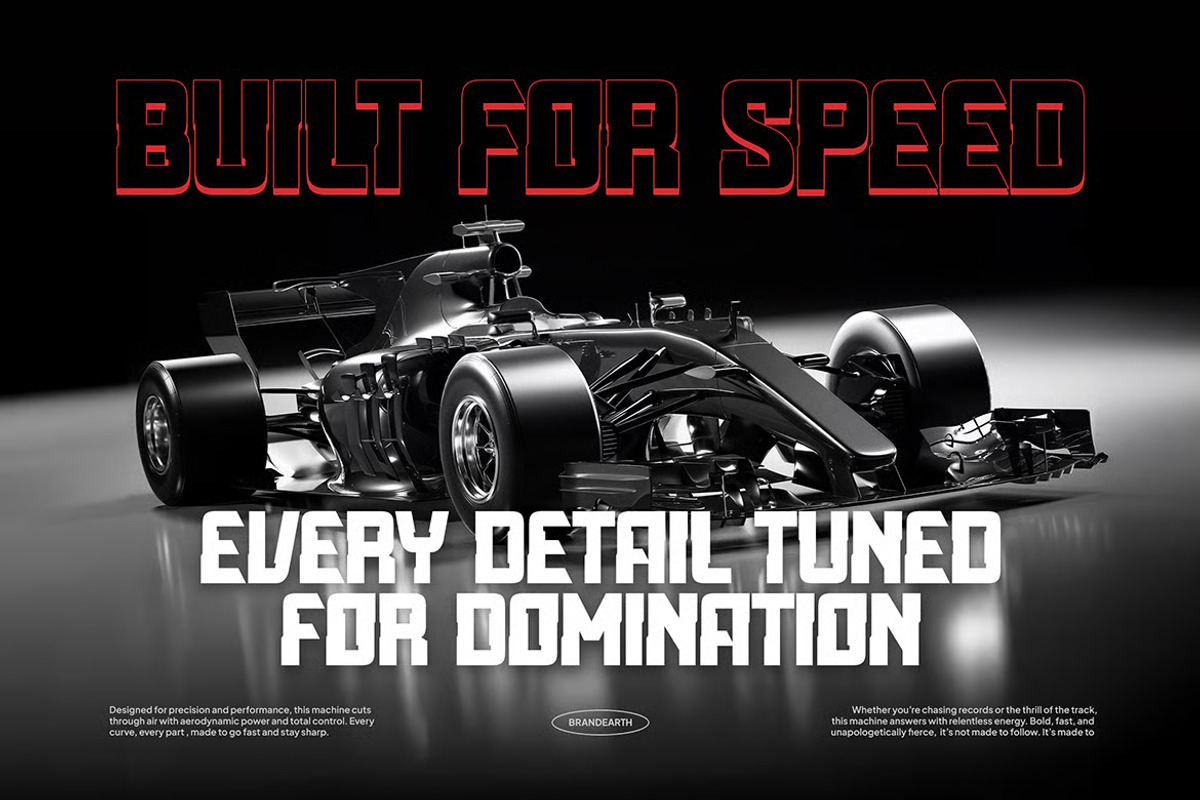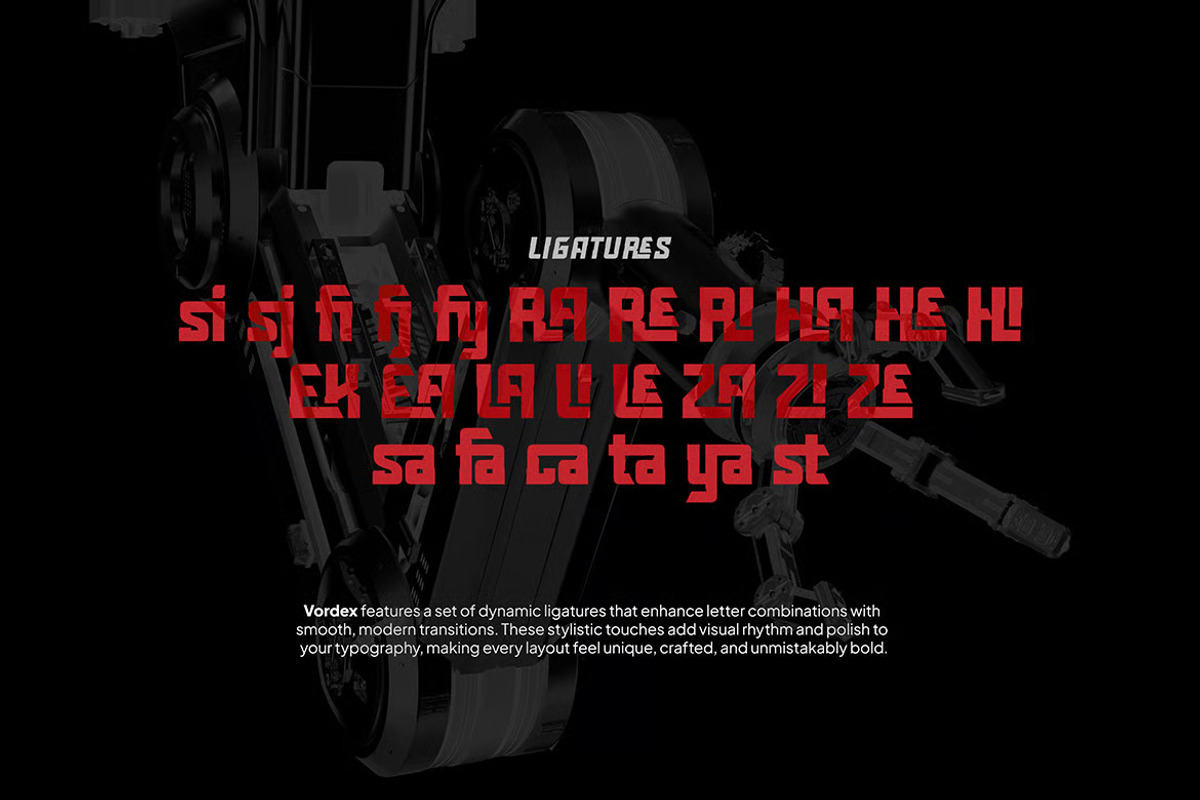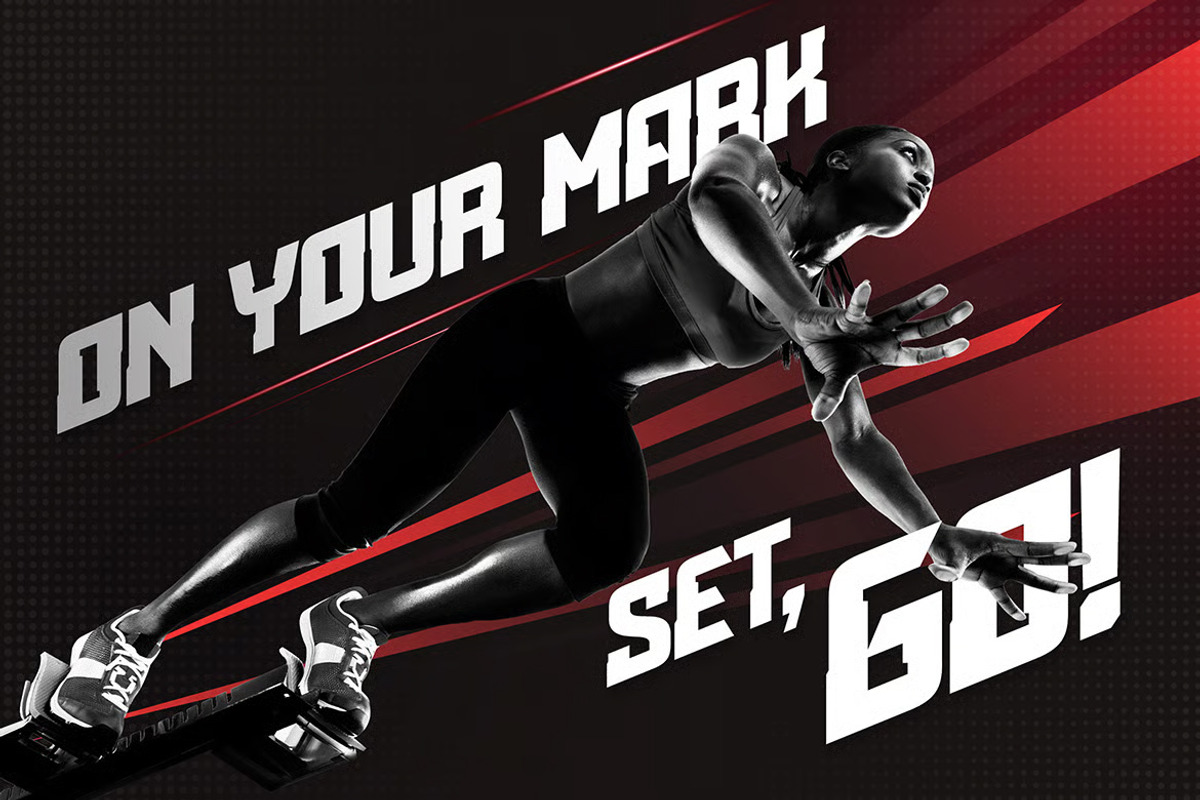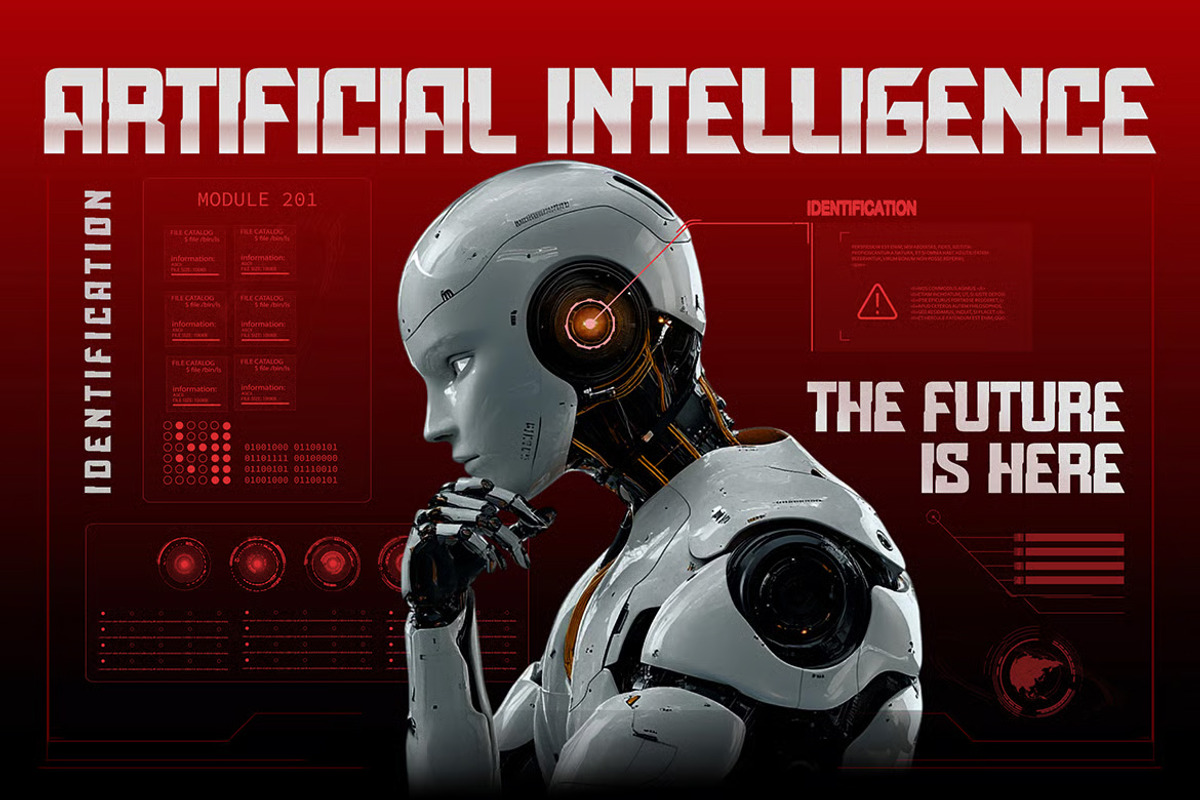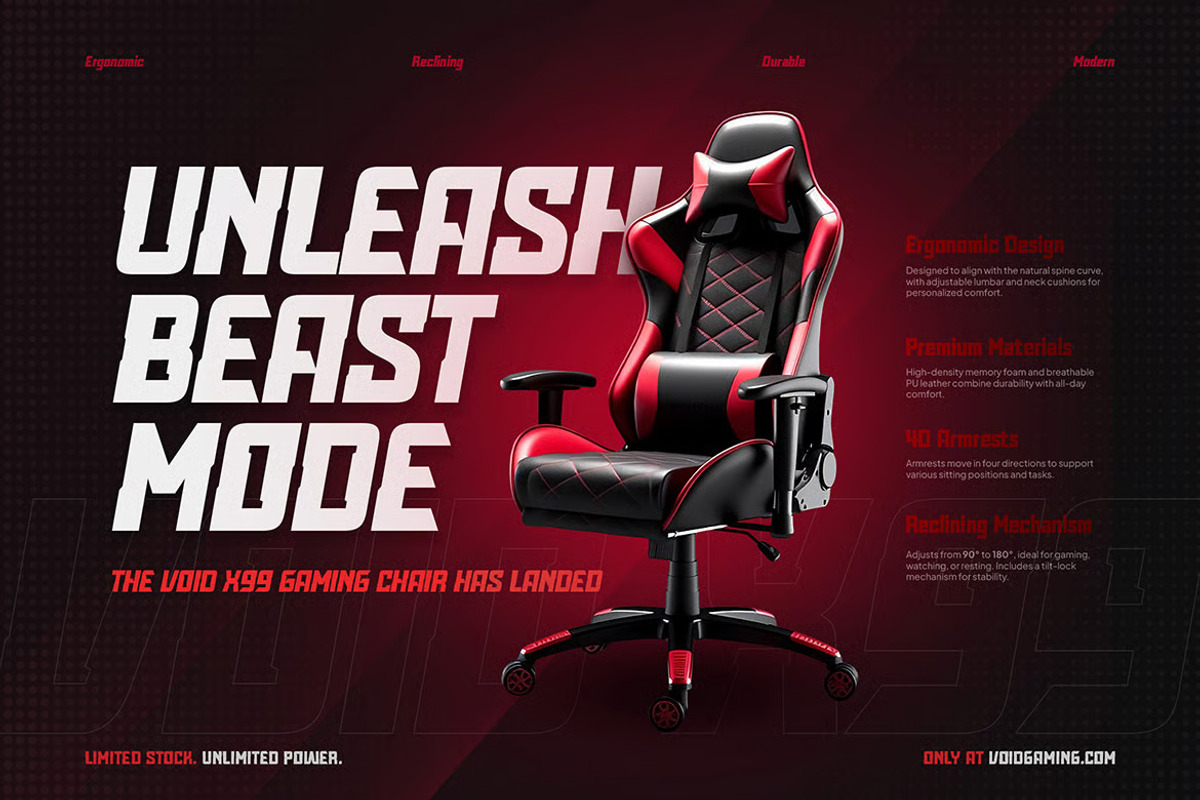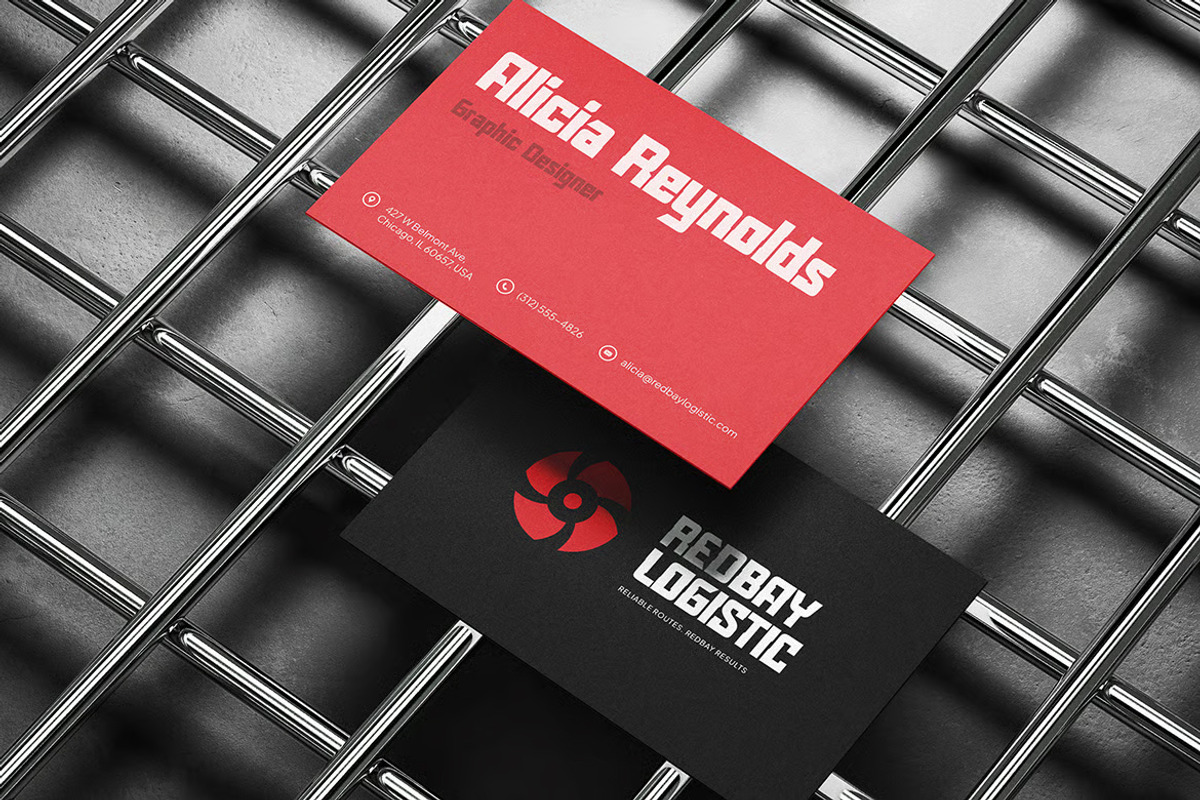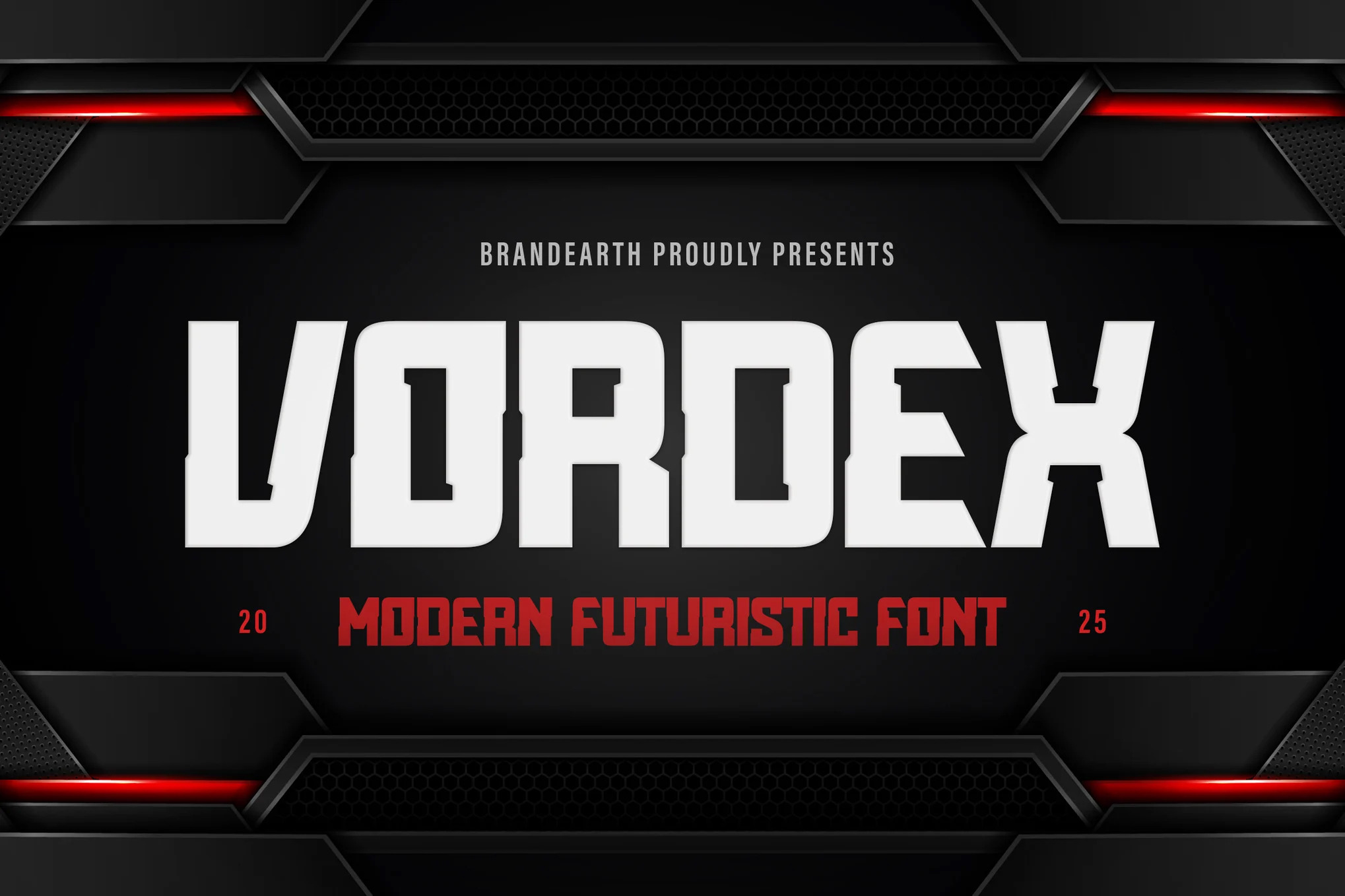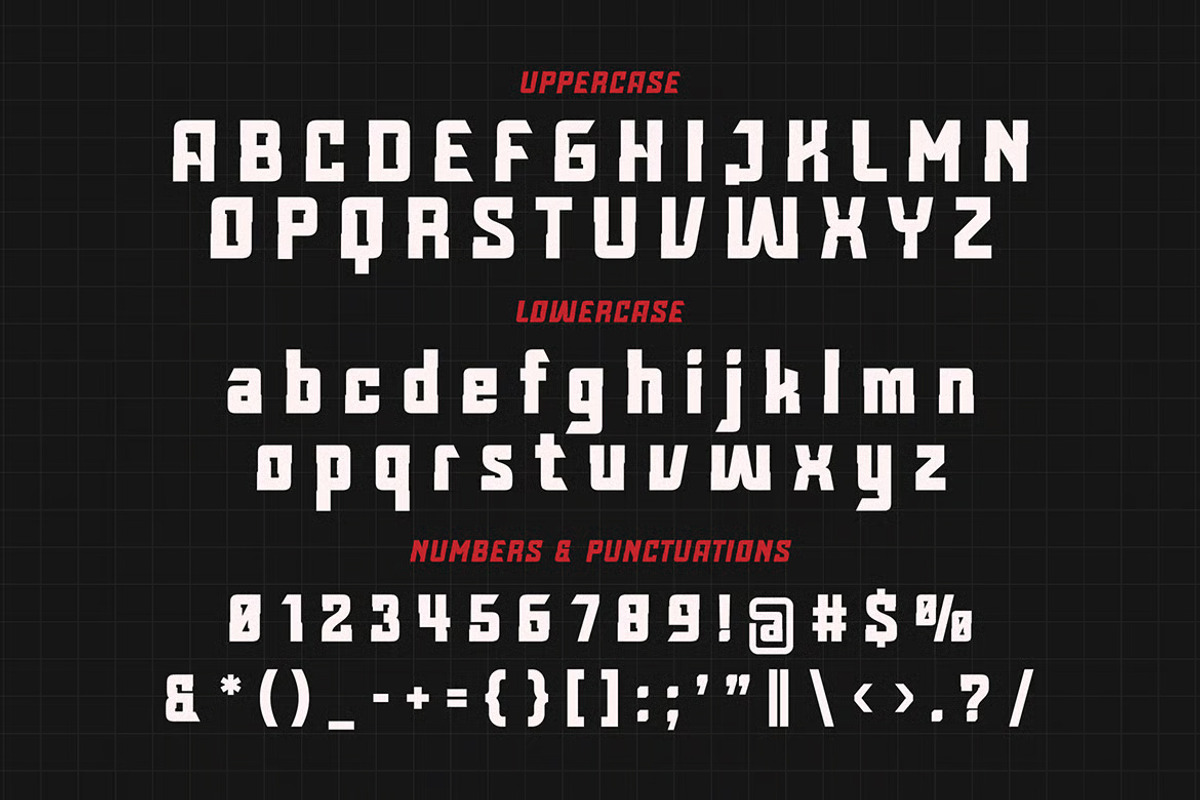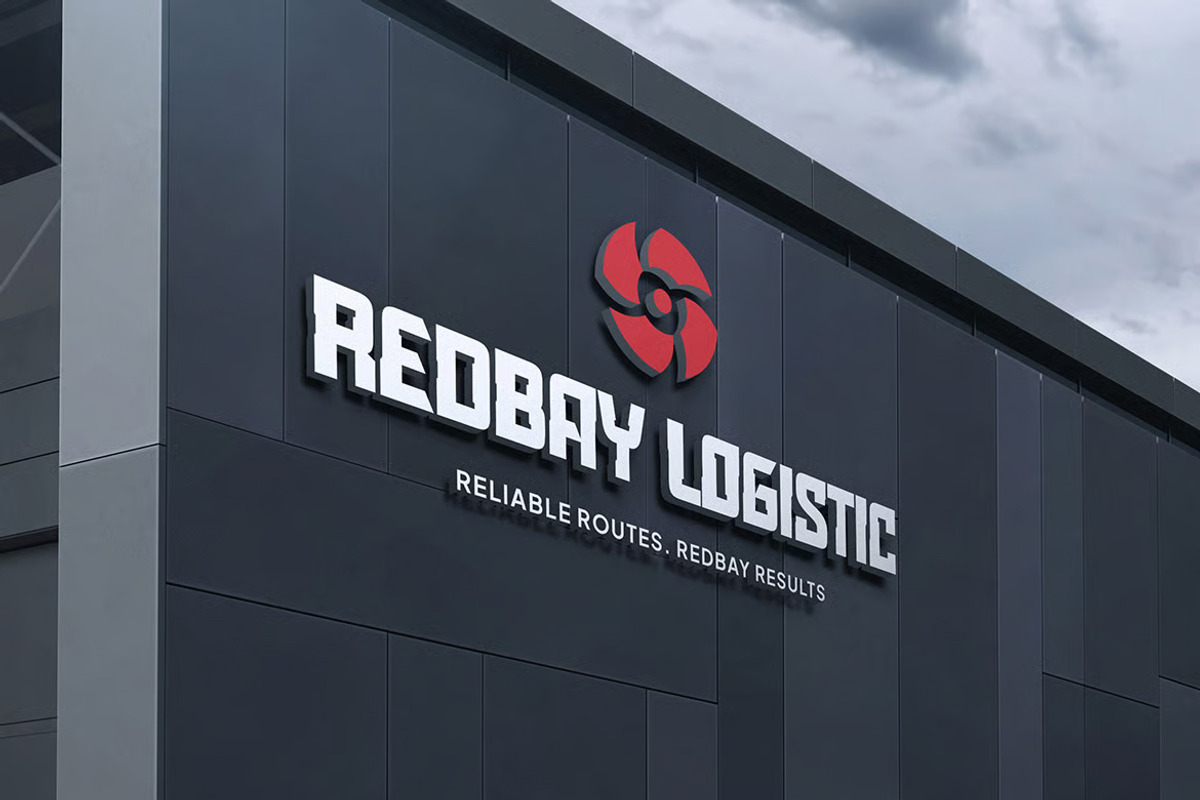
Vordex – Futuristic Display Font
Vordex is a modern futuristic display font engineered for power, performance, and impact. Its style radiates boldness and advanced precision, designed to command attention in high-energy, tech-driven environments. Vordex isn’t subtle—it’s a statement.
With its geometric construction, sharp corners, and modular forms, Vordex delivers a clean, mechanical rhythm that makes it ideal for digital interfaces, gaming titles, sports branding, and cyberpunk visuals. The all-caps letterforms are strong, angular, and unapologetically loud—built to cut through the noise in high-performance design spaces.
This typeface feels right at home in esports graphics, tech promos, product launches, sci-fi covers, and gym campaigns. Whether it’s racing adrenaline, robotics, or space-age branding, Vordex sets the tone for futuristic intensity.
Main Features
Ligatures & Alternate
Numeral & Punctuations
Suitable For: gaming titles, tech branding, sports ads, esports covers, sci-fi posters, streaming overlays, robot interfaces, car racing visuals, gym promotions, YouTube banners, industrial packaging, cyberpunk editorials, AI projects, digital startups, and modern merchandise.